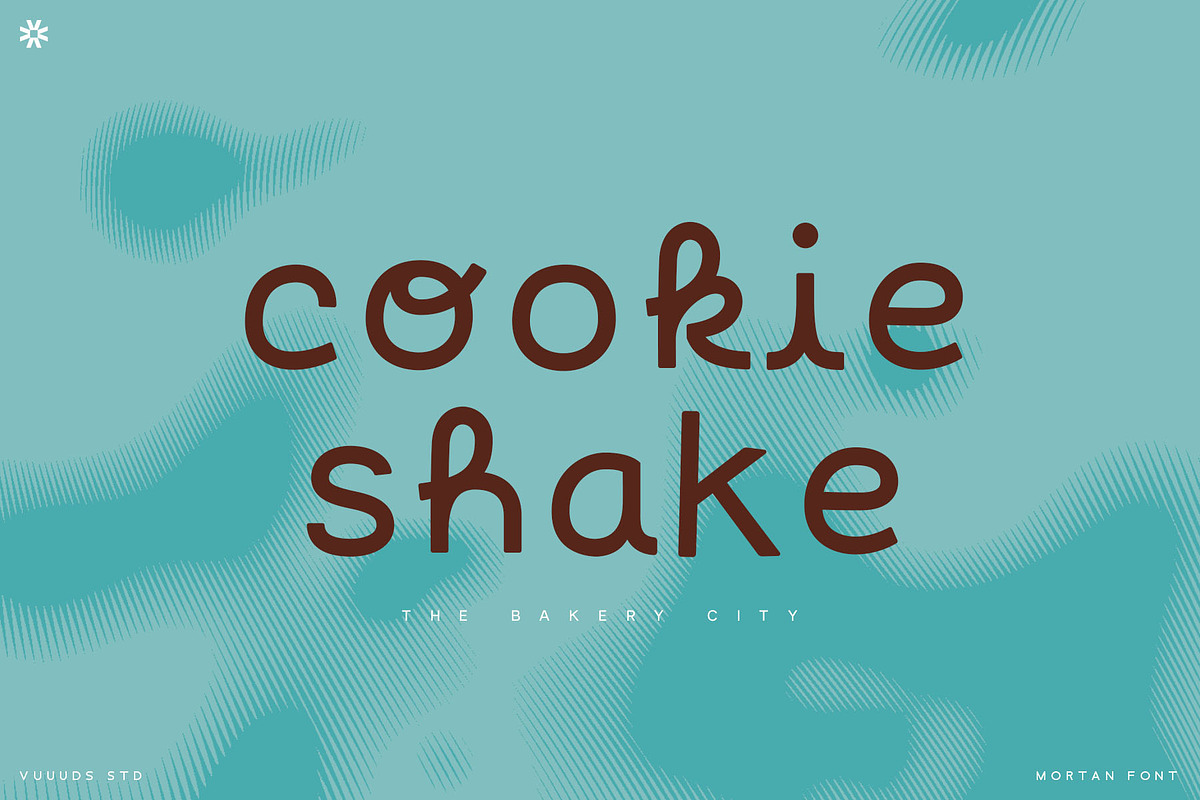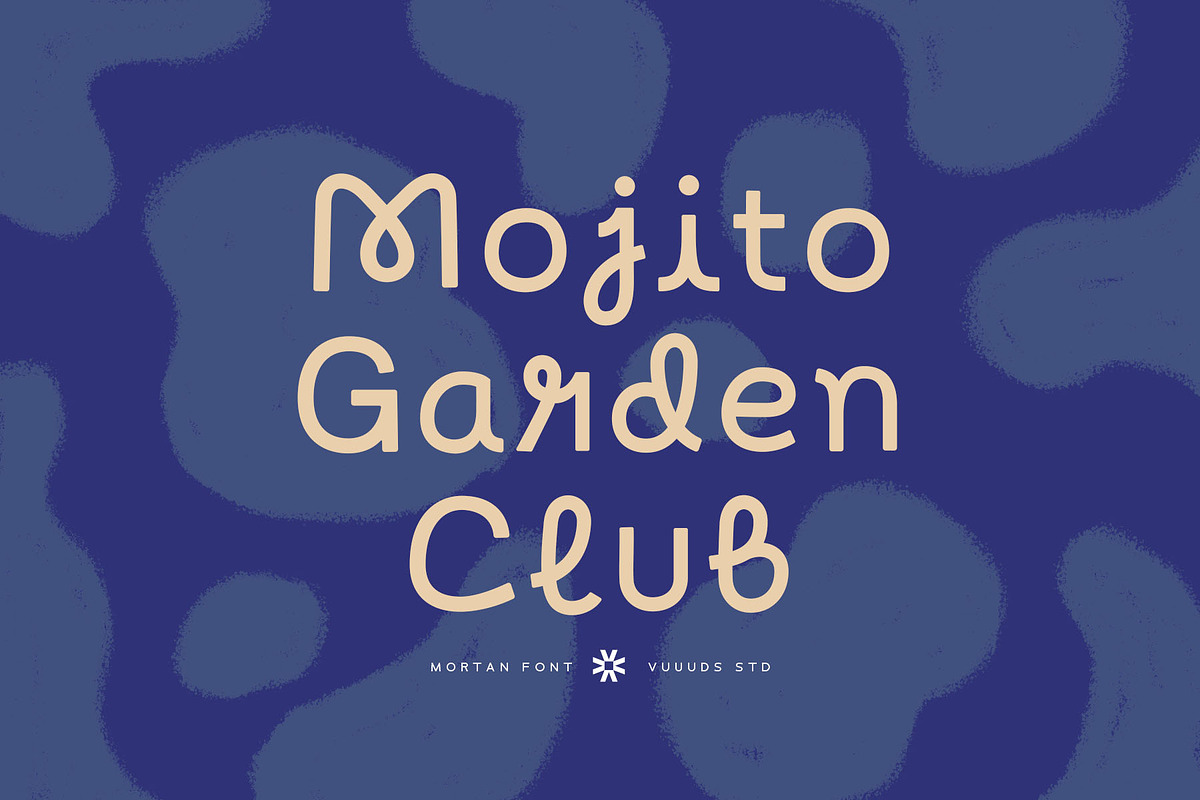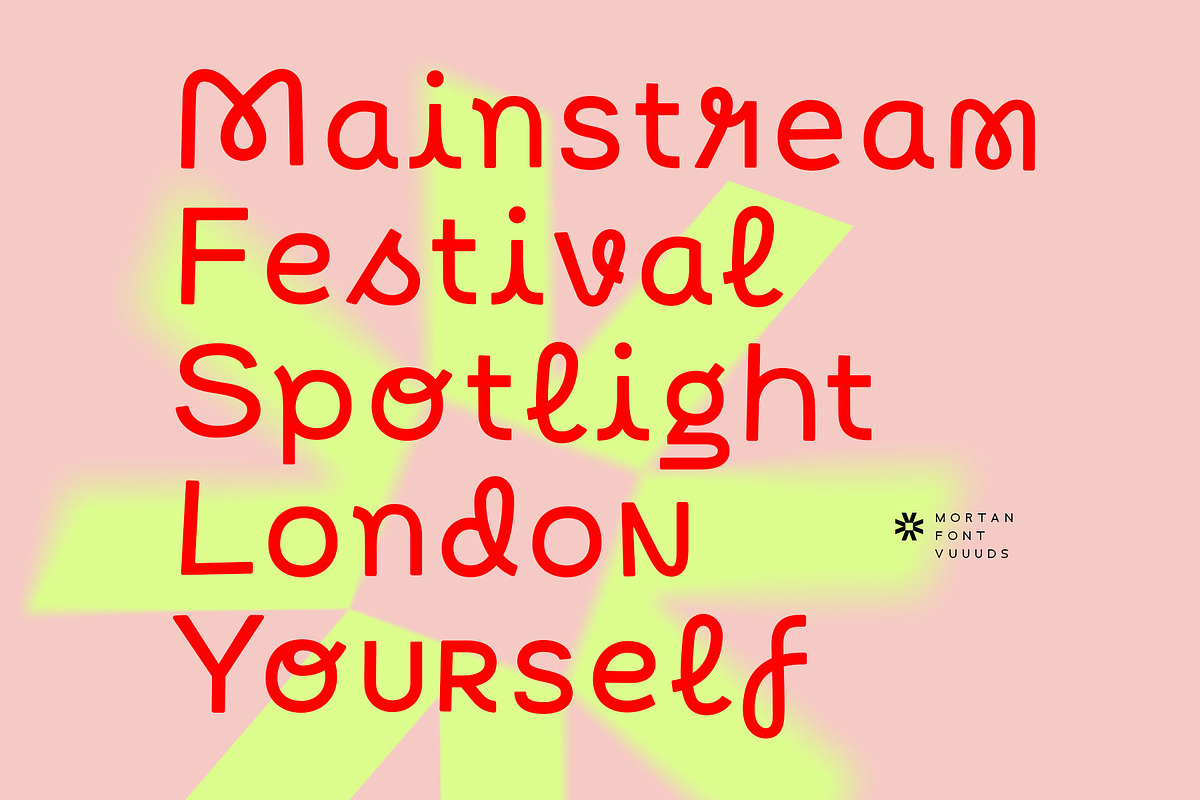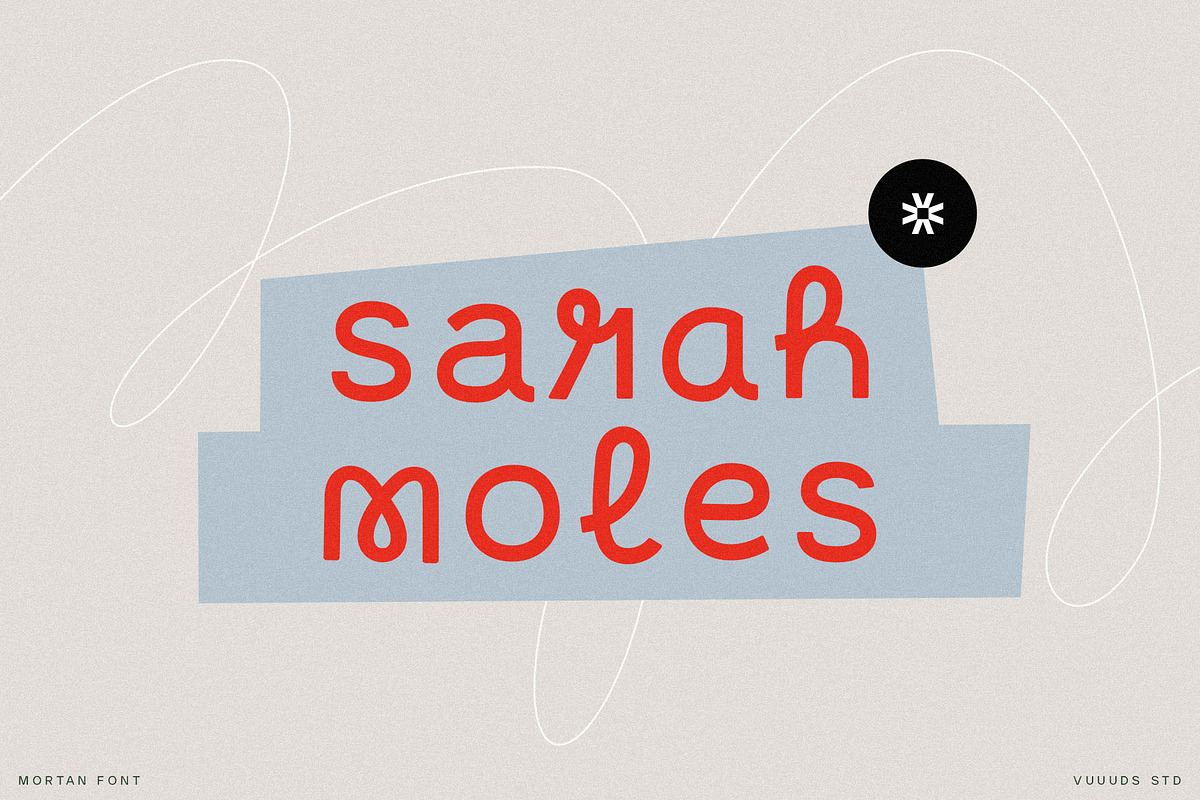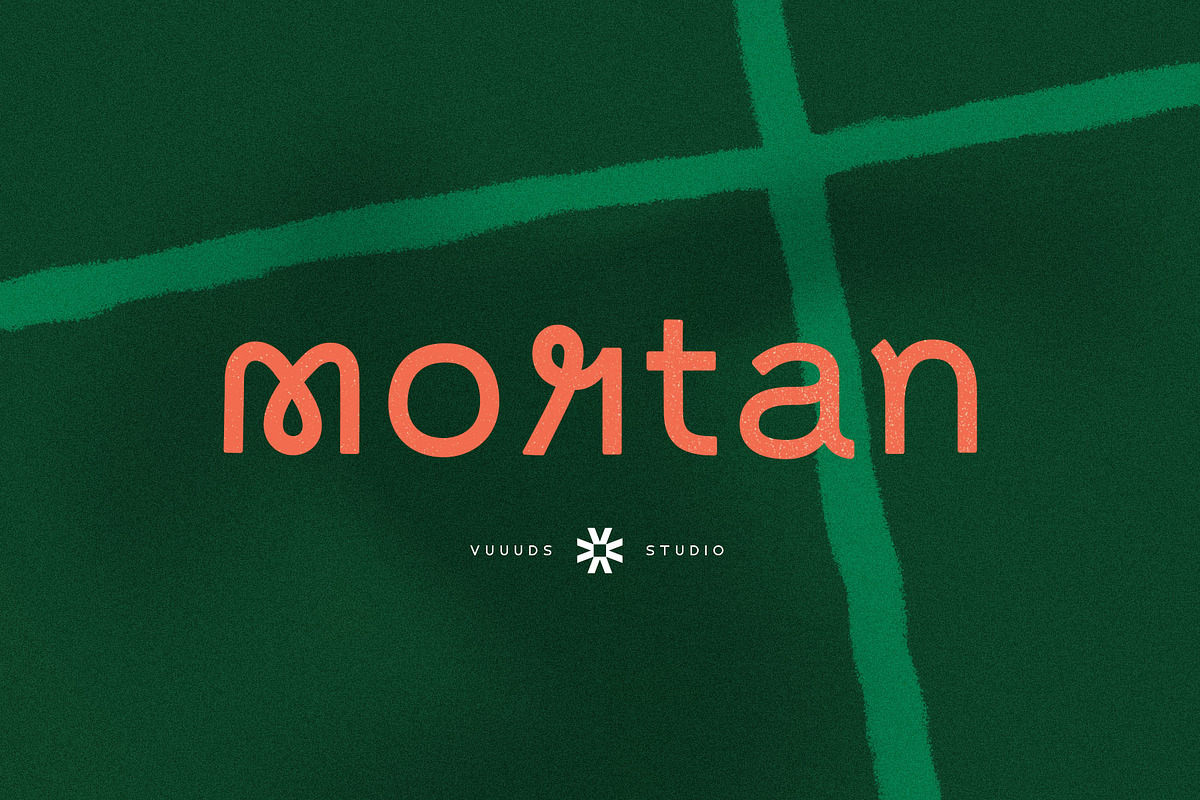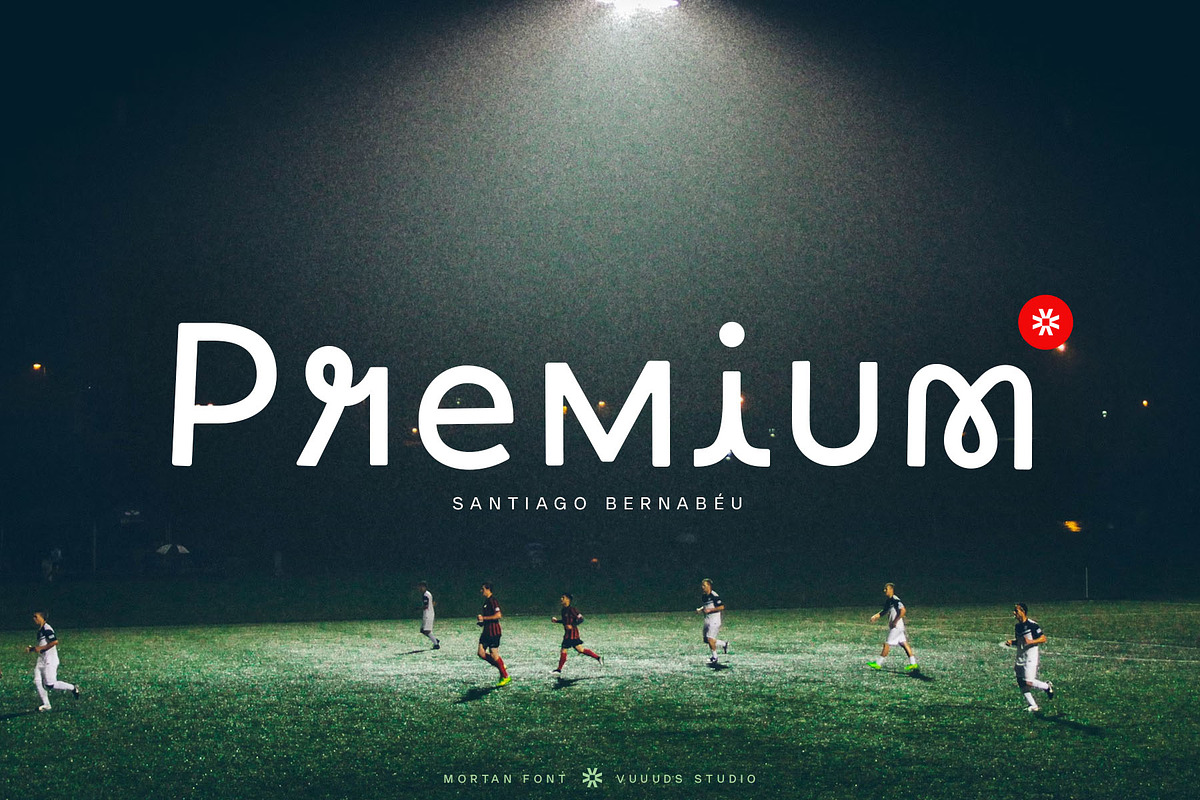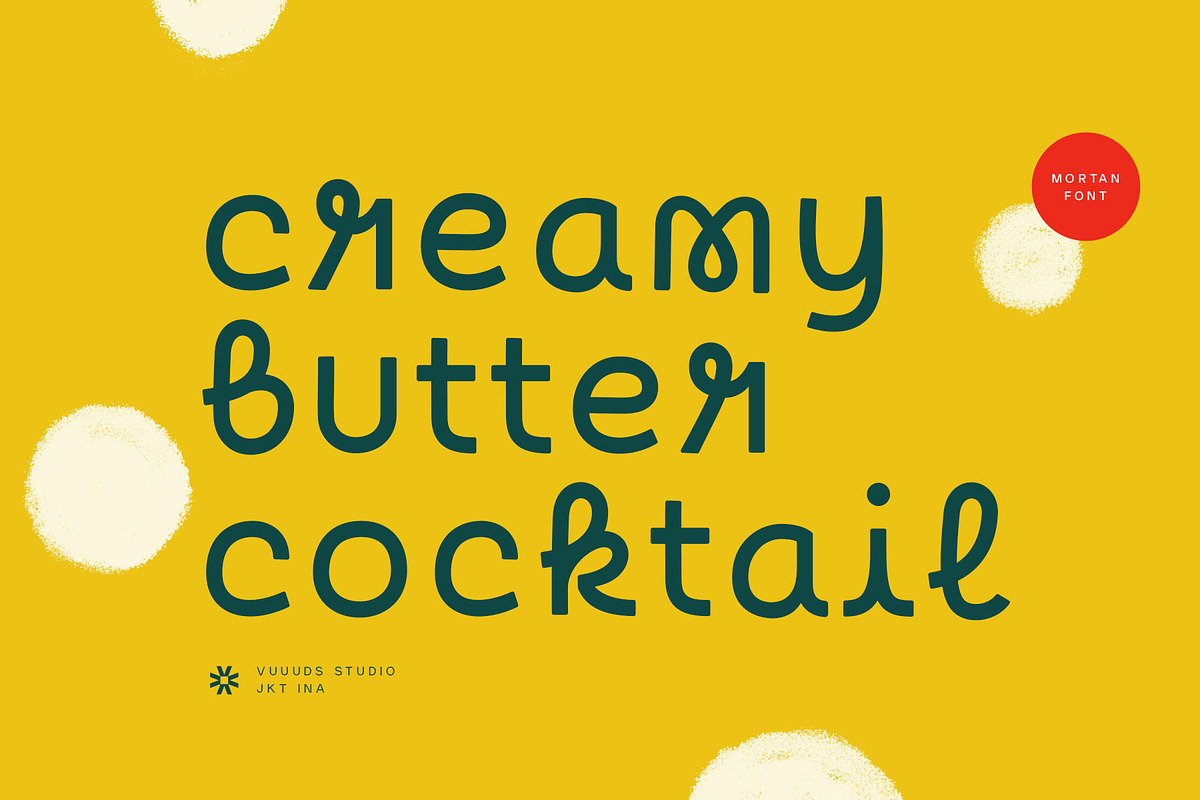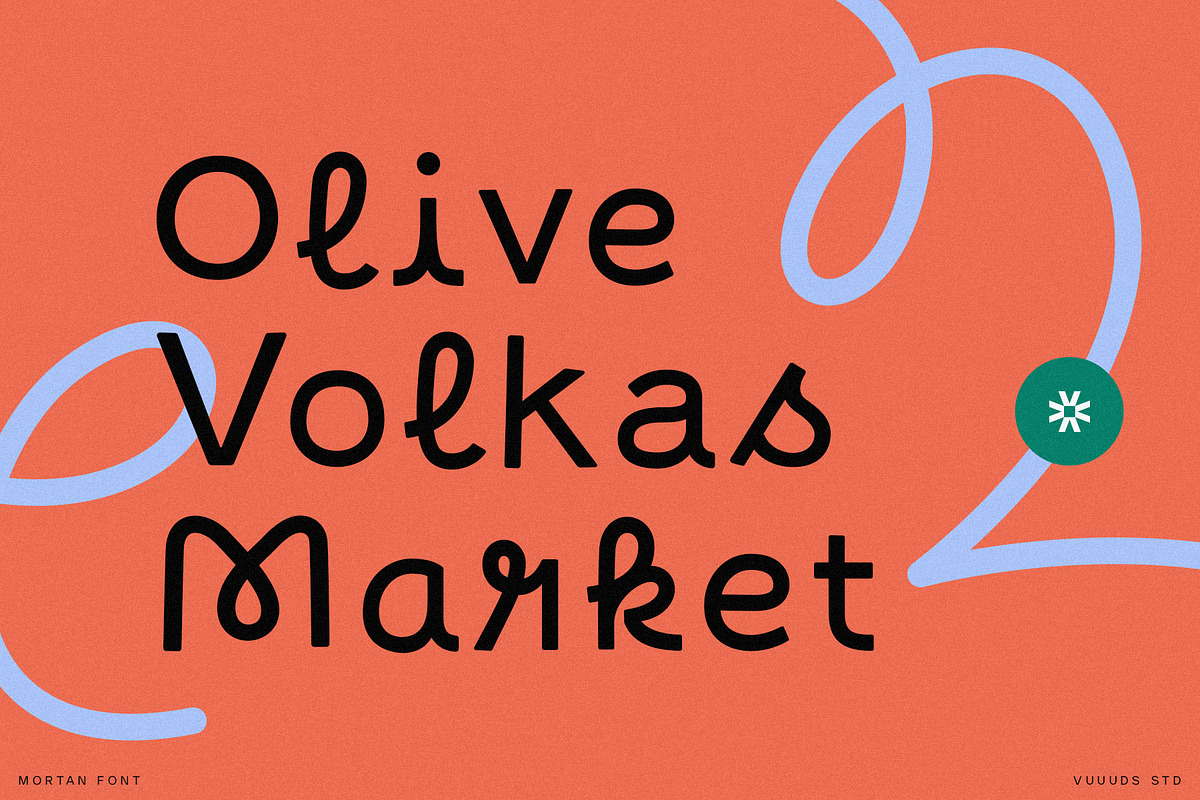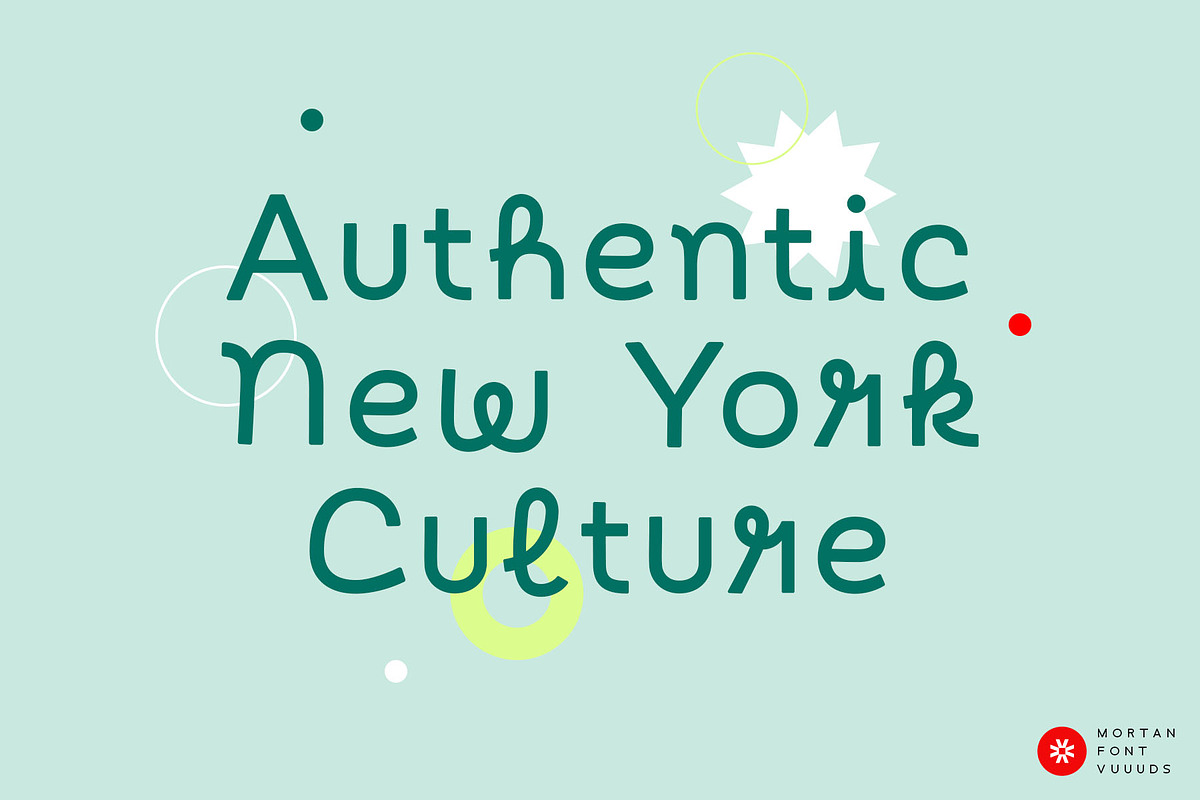
Mortan
Meet Henus, a unique and modern sans serif font where every single letter has been carefully crafted to stand out. It also comes with gorgeous alternate glyphs to give your designs that extra flair!